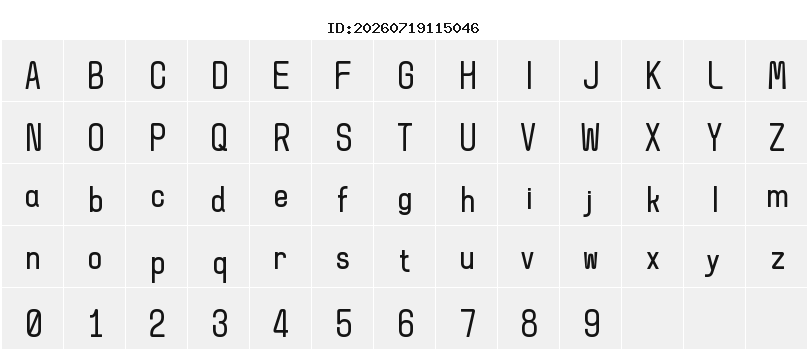
也字工厂曲风体 Preview
• Font Name: 也字工厂曲风体
• Full Font Name: 也字工厂曲风体
• Manufacturer: 也字工厂
About 也字工厂曲风体.ttf
也字工厂曲风体.ttf is a modern, elegant sans-serif font designed for ultimate readability and visual harmony. Perfect for branding, headlines, web design, and print materials.